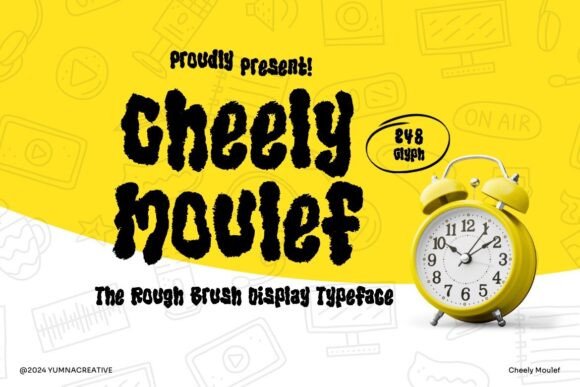
Discover the Energetic Vibes of Cheely Moulef Font and Music
In the realm of digital design and music, certain elements stand out for their unique ability to capture the essence of energy and movement. Among these, the “Cheely Moulef Font” and the song titled “Cheely Moulef – Rough Brush” have gained notable attention. This article aims to explore both the font and the song, delving into their characteristics, uses, and the impact they have on their respective fields.
The Cheely Moulef Font: Aesthetic and Applications
The Cheely Moulef Font is a distinctive typeface known for its bold and assertive appearance. Designed to make a statement, this font is often utilized in projects that require a strong visual impact. Its unique characteristics make it suitable for a variety of applications, from digital media to print design.
Design Characteristics
The Cheely Moulef Font boasts a rugged and unpolished look, which sets it apart from more conventional typefaces. Its letters are designed with a sense of dynamism, as if they are moving or have just been applied with a brush. This dynamic feel can add a layer of depth and energy to any design project.
Usage in Design
Graphic designers often turn to the Cheely Moulef Font when they want to evoke a sense of power, movement, or ruggedness. It’s particularly popular in:
- Music posters and album covers, especially in genres that value a raw, unpolished aesthetic.
- Digital content, such as blog headers or social media graphics, where standing out is crucial.
- Advertising materials, where capturing attention quickly is key.
Connecting Font and Music: A Shared Ethos
Despite being from different creative domains, the Cheely Moulef Font and “Cheely Moulef – Rough Brush” share a common ethos: the pursuit of energy and movement. Both the font and the song manage to capture and convey a sense of dynamism, albeit through different mediums.
Creative Synergy
When used together, the Cheely Moulef Font and “Cheely Moulef – Rough Brush” can create a powerful synergy. For instance, a promotional video featuring the song could utilize the font in its titles or subtitles, enhancing the overall impact of the visual and auditory experience.
In conclusion, the Cheely Moulef Font and “Cheely Moulef – Rough Brush” are exemplary of how creativity can manifest in different forms, yet share a common goal of expressing energy and movement. Whether through digital design or musical composition, both have made a significant impact in their respective fields. Their bold, raw, and dynamic characteristics make them stand out, offering endless possibilities for creative expression.